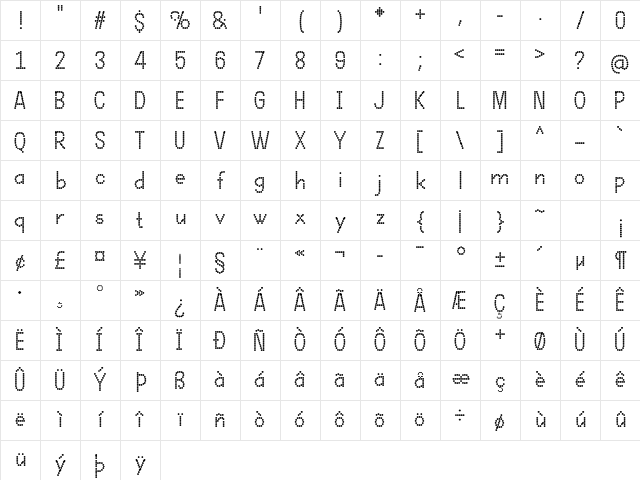
Complete DOTCIRFUL Bold glyph index. Displaying only characters natively supported by DOTCIRFUL Bold font.
DOTCIRFUL is rooted in pixel-grid construction, making it a natural fit for game UI, retro computing aesthetics, and digital nostalgia projects.